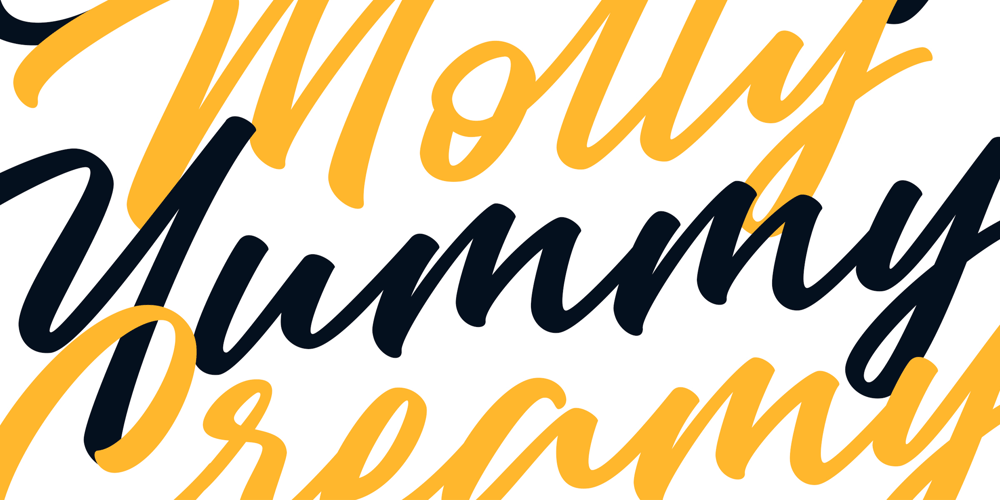
Lil Stuart Font Family was designed by Måns Grebäck and published by Mans Greback. Lil Stuart contains 2 styles and family package options. Lil Stuart is a beautiful calligraphic script typeface. Drawn and created between 2019 to 2022, this logotype lettering has a vivid style and a strong personality. It has an optimistic look, expressive speed and characteristic movements. Use underscore _ anywhere in a word to make an underline.Example: Love_letterUse multiple underscores to make different swashes.Example: Base_____ballUse numbersign # after any letter to make a swash.Example: Welcome# Summer#(Download required.)The Lil Stuart typeface family consist of Regular and Italic. The font is built with advanced OpenType functionality and has a guaranteed top-notch quality, containing stylistic and contextual alternates, ligatures and more features; all to give you full control and customizability. It has extensive lingual support, covering all Latin-based languages, from Northern Europe to South Africa, from America to South-East Asia. It contains all characters and symbols you’ll ever need, including all punctuation and numbers.